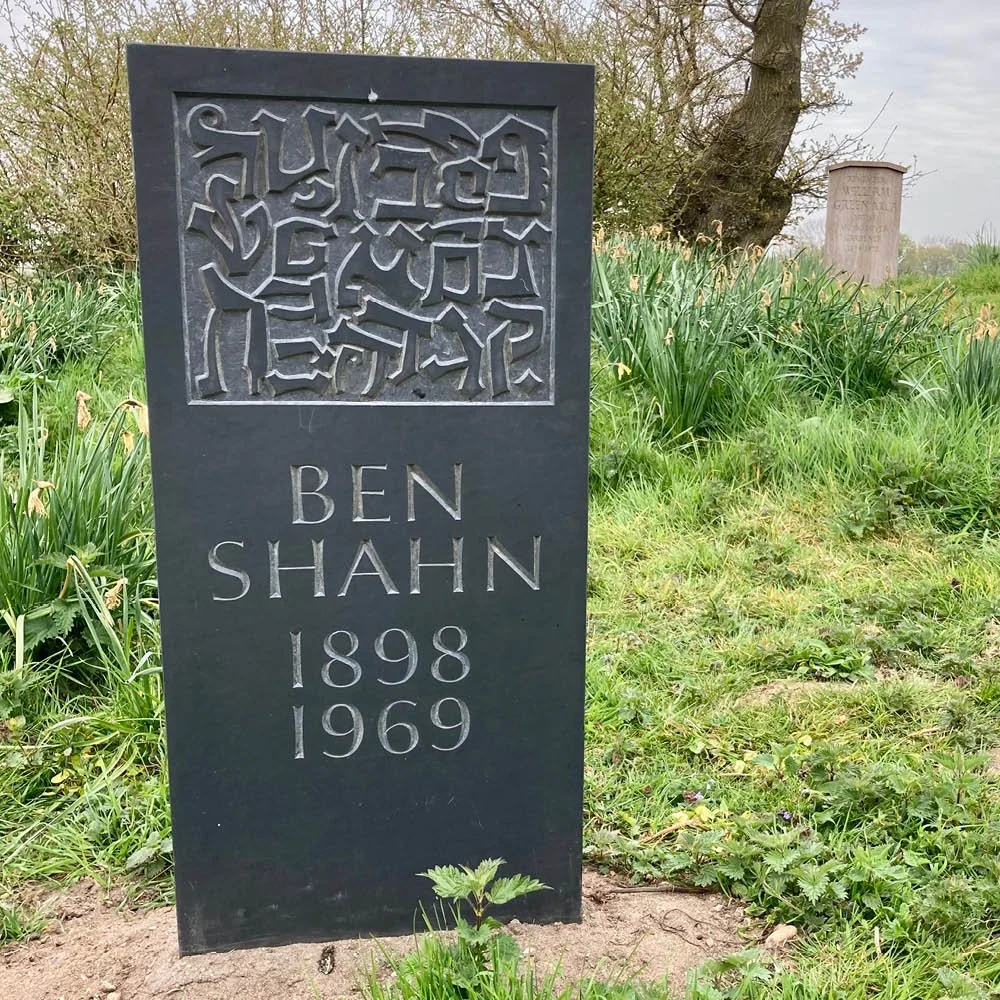
Memorial Tribute to Ben Shahn by John Nash
Welsh Slate
‘This piece shows on one side Shahn’s ‘chop’, or identifying stamp, composed of letters of the Hebrew alphabet. On the other, an observation from one of his lectures, which any artist or craftsman would do well to take to heart.’